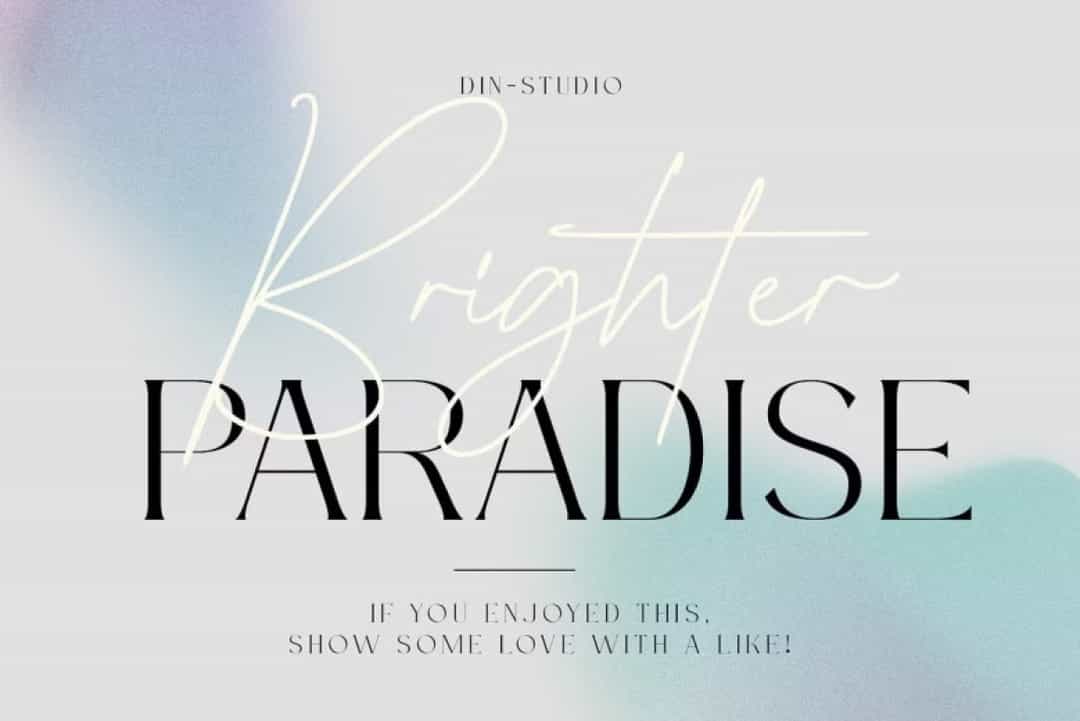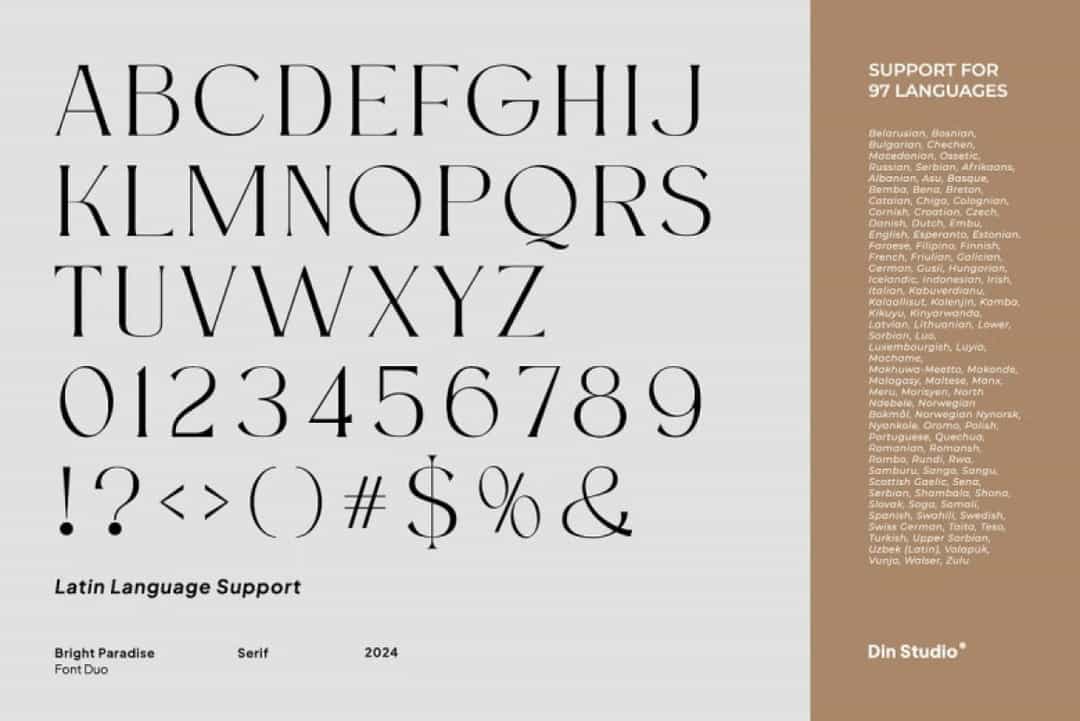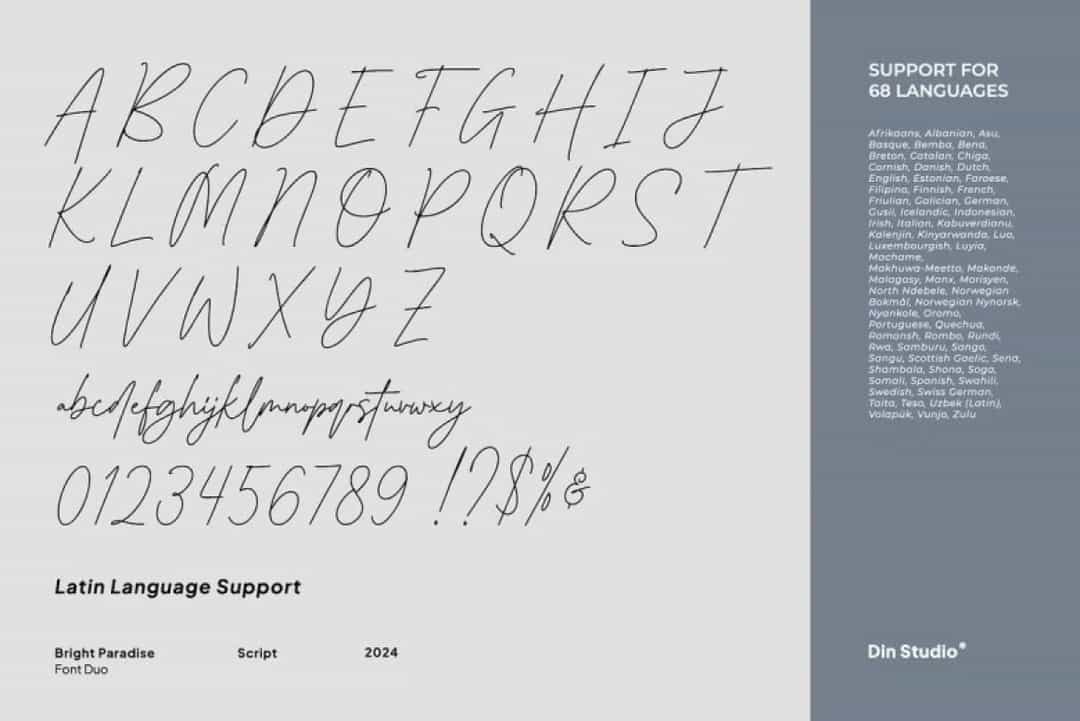
Brighter Paradise will set your journey of elegance off on the right note with its striking duo font that combines classical serif elegance with the sophisticated appeal of script. Created to evoke feelings of luxury and warmth, this font duo makes an excellent addition to projects needing an elegant touch – the serif font alone exudes class thanks to uppercase letters featuring distinct serifs!